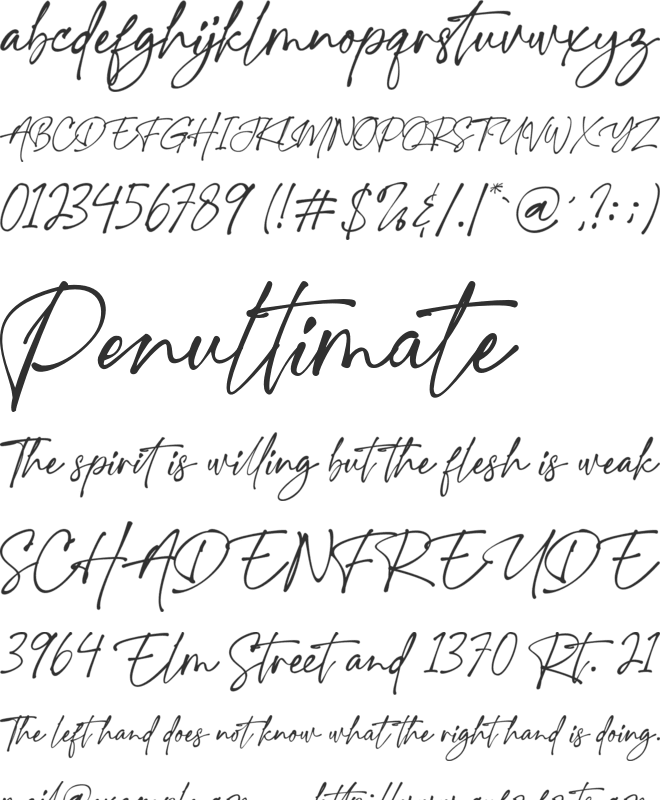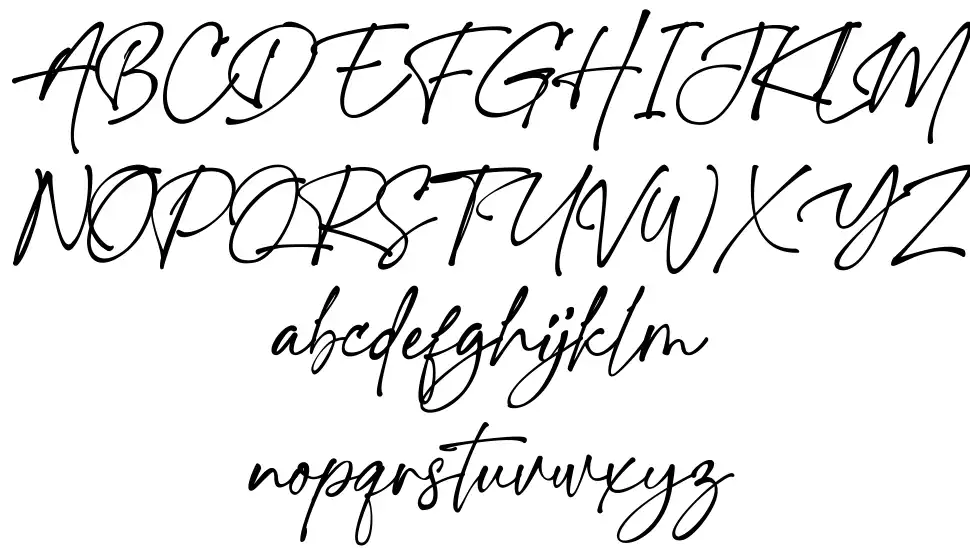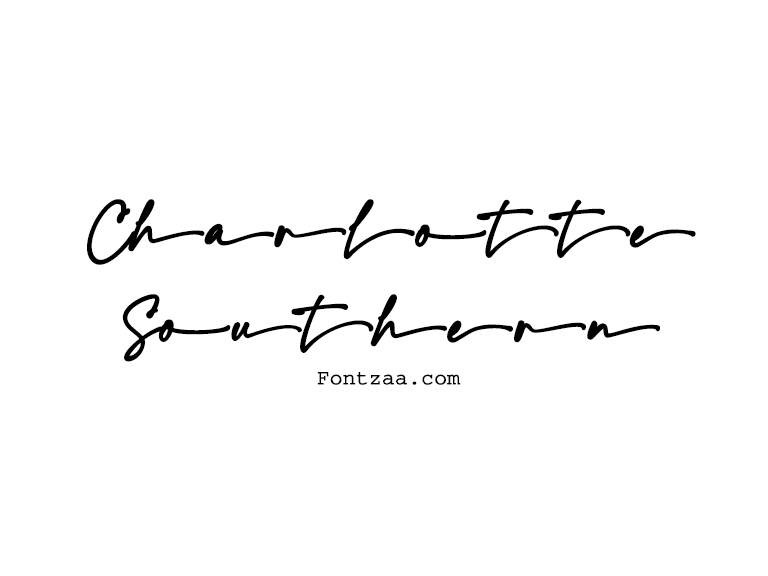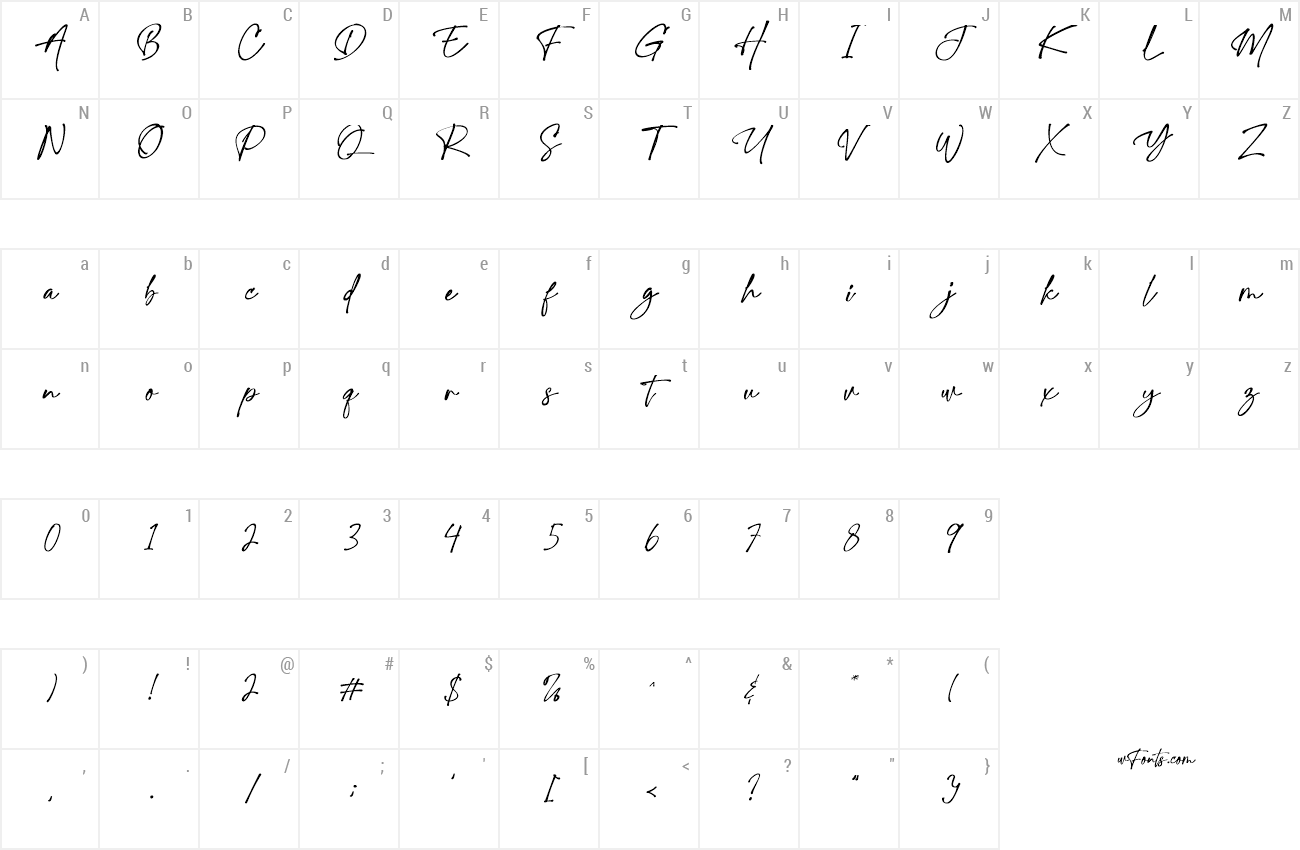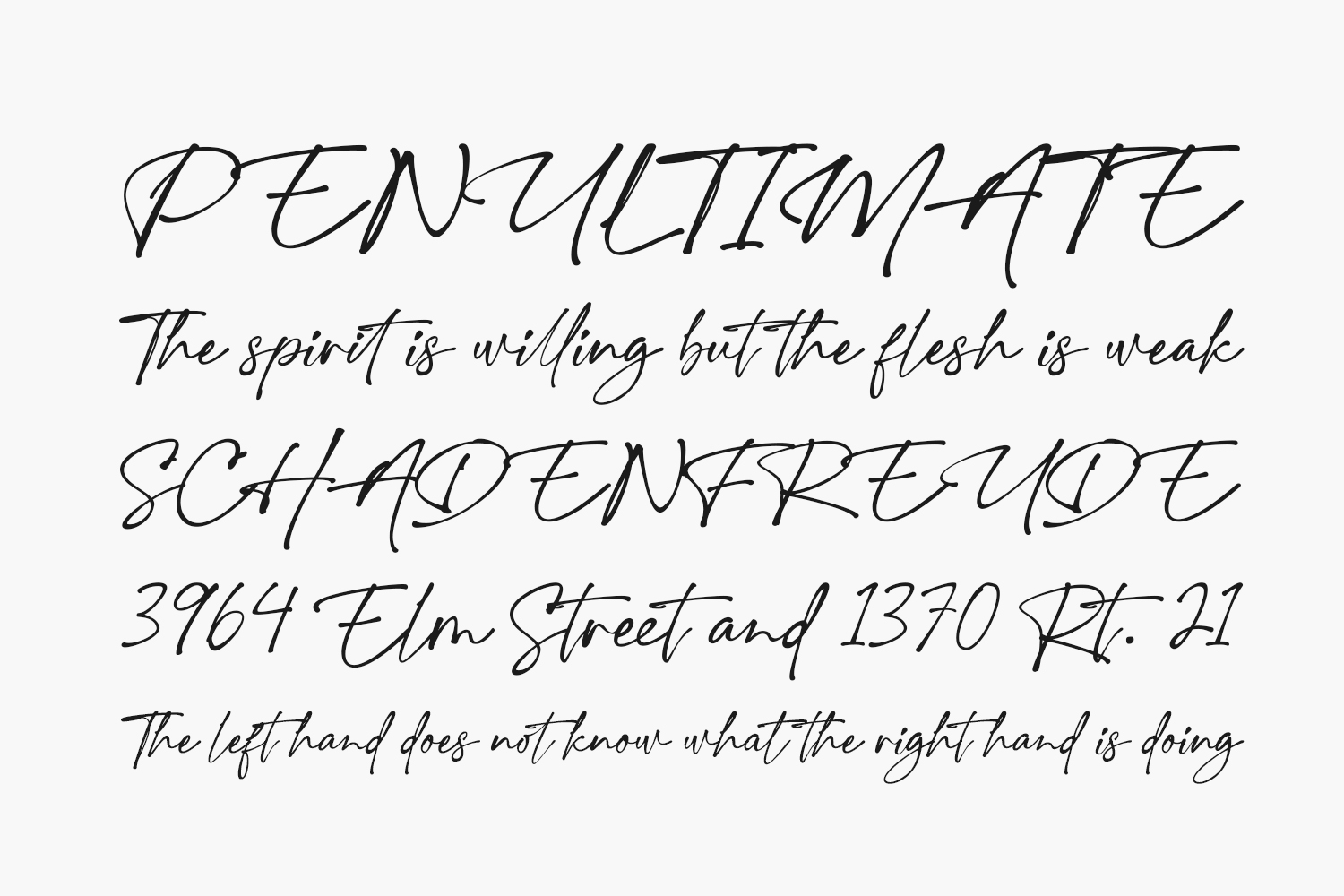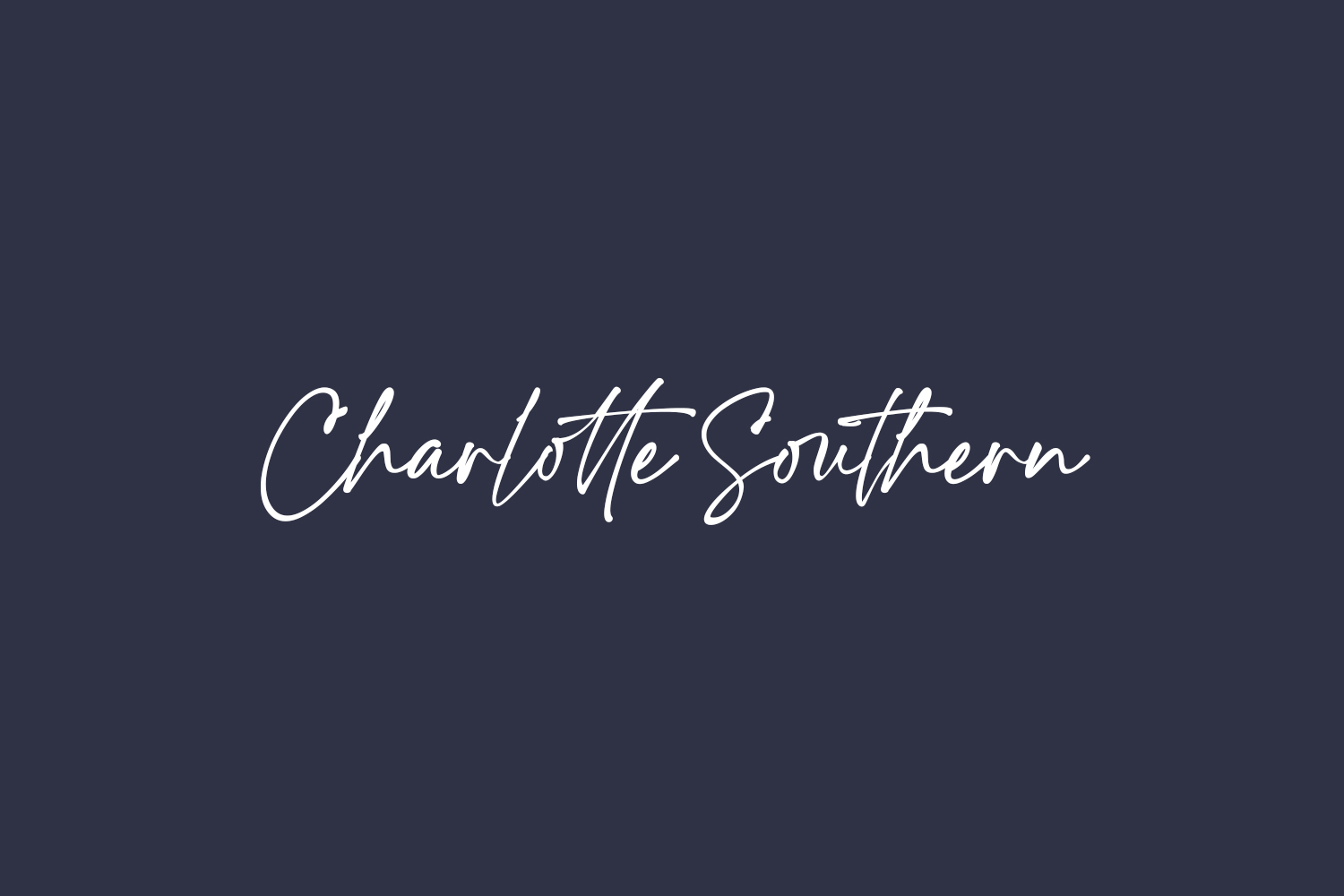
Charlotte Southern Font
Charlotte Southern Font - 449,026 downloads (80 yesterday) free for. Web introducing the modern charlotte southern is a spectacular handwritten font. A little bit quirky, this. A little bit quirky, this font looks incredibly adept on. Web introducing the modern charlotte southern is a spectacular handwritten font. Web charlotte southern à by letternun.
Web introducing the modern charlotte southern is a spectacular handwritten font. 449,026 downloads (80 yesterday) free for. Web charlotte southern à by letternun. A little bit quirky, this. A little bit quirky, this font looks incredibly adept on. Web introducing the modern charlotte southern is a spectacular handwritten font.
A little bit quirky, this. Web charlotte southern à by letternun. Web introducing the modern charlotte southern is a spectacular handwritten font. 449,026 downloads (80 yesterday) free for. A little bit quirky, this font looks incredibly adept on. Web introducing the modern charlotte southern is a spectacular handwritten font.
Web introducing the modern charlotte southern is a spectacular handwritten font. A little bit quirky, this. 449,026 downloads (80 yesterday) free for. Web introducing the modern charlotte southern is a spectacular handwritten font. A little bit quirky, this font looks incredibly adept on.
Charlotte Southern Font
Web introducing the modern charlotte southern is a spectacular handwritten font. Web charlotte southern à by letternun. 449,026 downloads (80 yesterday) free for. A little bit quirky, this font looks incredibly adept on. A little bit quirky, this.
Web introducing the modern charlotte southern is a spectacular handwritten font. Web charlotte southern à by letternun. A little bit quirky, this font looks incredibly adept on. 449,026 downloads (80 yesterday) free for. Web introducing the modern charlotte southern is a spectacular handwritten font.
A little bit quirky, this. Web introducing the modern charlotte southern is a spectacular handwritten font. Web charlotte southern à by letternun. A little bit quirky, this font looks incredibly adept on. Web introducing the modern charlotte southern is a spectacular handwritten font.
Web introducing the modern charlotte southern is a spectacular handwritten font. Web charlotte southern à by letternun. A little bit quirky, this. A little bit quirky, this font looks incredibly adept on. Web introducing the modern charlotte southern is a spectacular handwritten font.
Web charlotte southern à by letternun. A little bit quirky, this font looks incredibly adept on. Web introducing the modern charlotte southern is a spectacular handwritten font. Web introducing the modern charlotte southern is a spectacular handwritten font. A little bit quirky, this.
Web charlotte southern à by letternun. Web introducing the modern charlotte southern is a spectacular handwritten font. A little bit quirky, this font looks incredibly adept on. 449,026 downloads (80 yesterday) free for. A little bit quirky, this.
Web introducing the modern charlotte southern is a spectacular handwritten font. 449,026 downloads (80 yesterday) free for. Web introducing the modern charlotte southern is a spectacular handwritten font. Web charlotte southern à by letternun. A little bit quirky, this font looks incredibly adept on.
Charlotte Southern Font Download For Free, View Sample Text, Rating
Web introducing the modern charlotte southern is a spectacular handwritten font. A little bit quirky, this. Web charlotte southern à by letternun. A little bit quirky, this font looks incredibly adept on. 449,026 downloads (80 yesterday) free for.
Charlotte Southern Fonts Shmonts
A little bit quirky, this. 449,026 downloads (80 yesterday) free for. Web charlotte southern à by letternun. Web introducing the modern charlotte southern is a spectacular handwritten font. Web introducing the modern charlotte southern is a spectacular handwritten font.
Web Introducing The Modern Charlotte Southern Is A Spectacular Handwritten Font.
449,026 downloads (80 yesterday) free for. A little bit quirky, this font looks incredibly adept on. A little bit quirky, this. Web introducing the modern charlotte southern is a spectacular handwritten font.